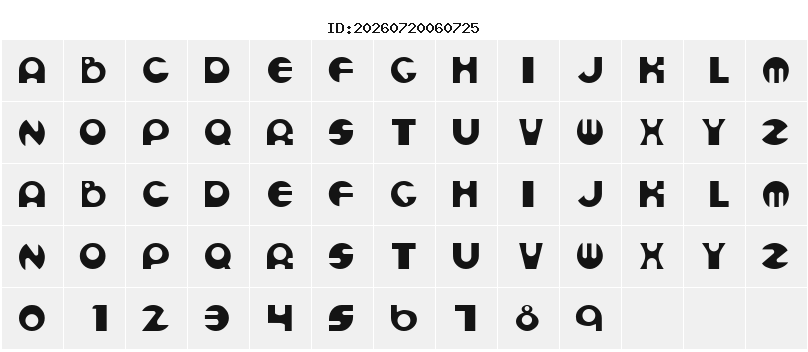
ESMOND Preview
About ESMOND.ttf
ESMOND.ttf is a modern, elegant sans-serif font designed for ultimate readability and visual harmony. Perfect for branding, headlines, web design, and print materials.